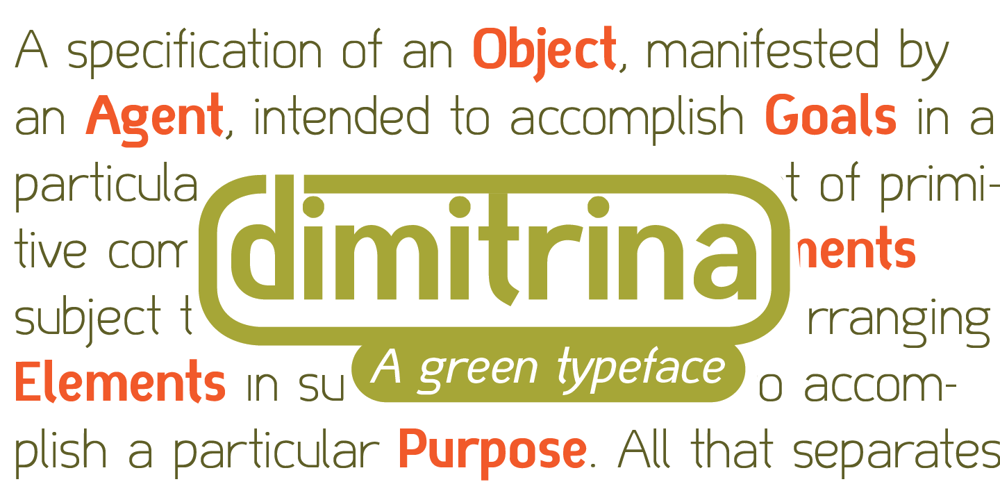
Dimitrina
Dimitrina font
Dimitrina Font Family was designed by Boris Nikolaev Marinov and published by Evolutionfonts. Dimitrina contains 6 styles and family package options. Dimitrina was created with a simple premise: Can there exist a typeface which features a minimum of sharp angles? And a readable typeface, as well? With these strict rules in mind, the development started. At first the typeface looked more like a script, and some characters ( M G or R, to name a few) still hold traces of a handwritten style which spices the overall taste of Dimitrina. Since the first draft every character was redrawn, and edited several times, for the purpose of making the typeface readable, and distinct at the same time. Estimate for yourself if our goals are achieved, while you observe the three weights which are available exclusively in MyFonts. All of them feature a full set of characters plus cyrillic support. You can also try the regular weight which is offered free.